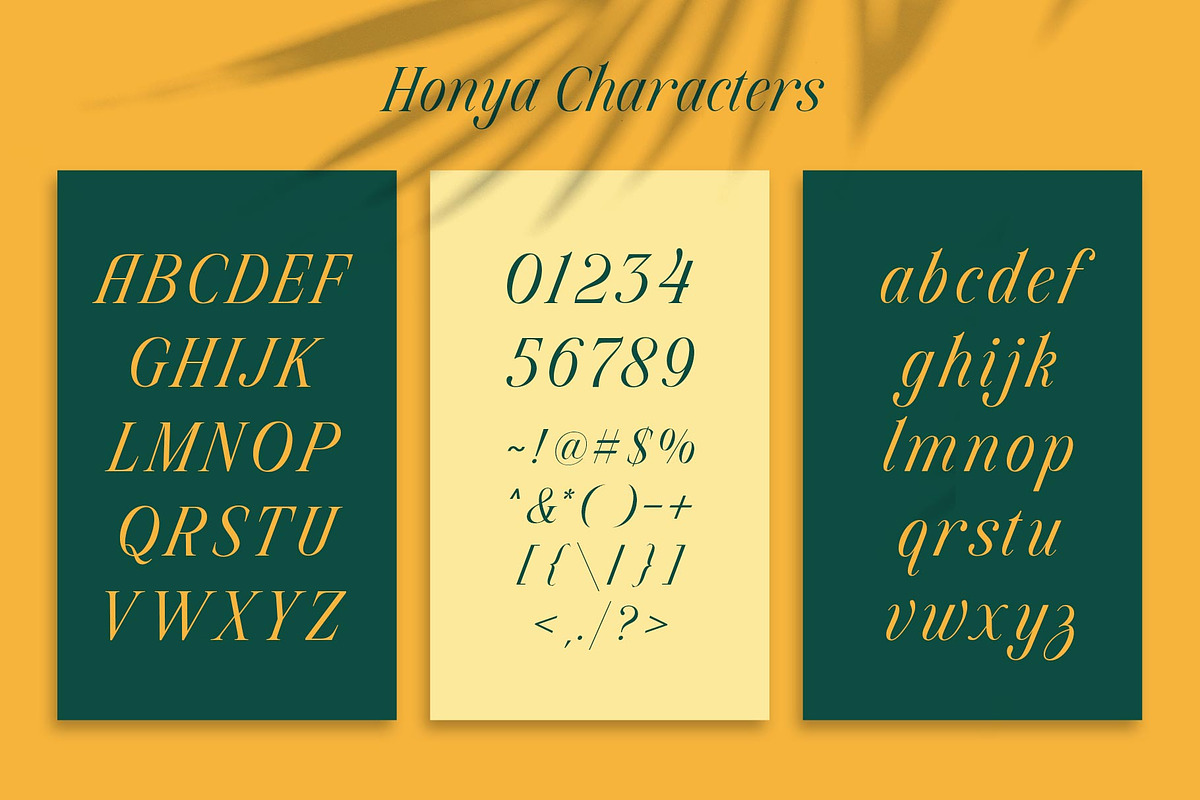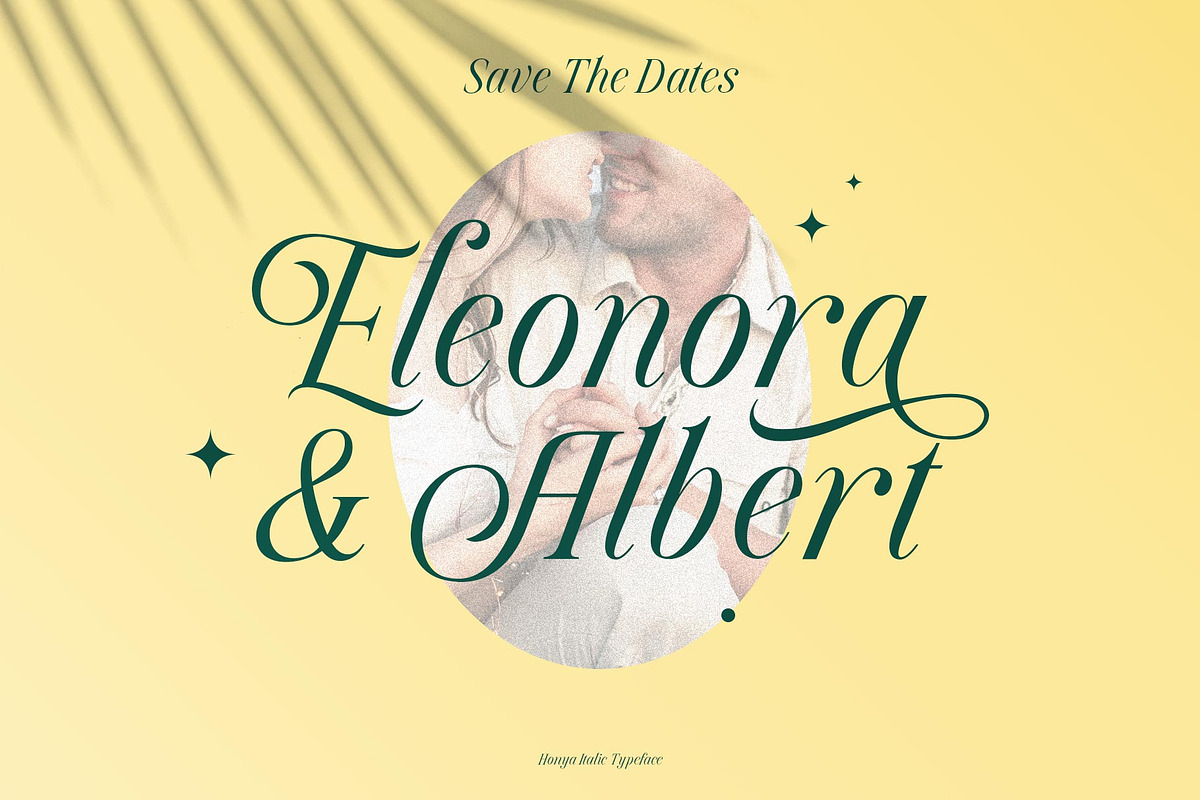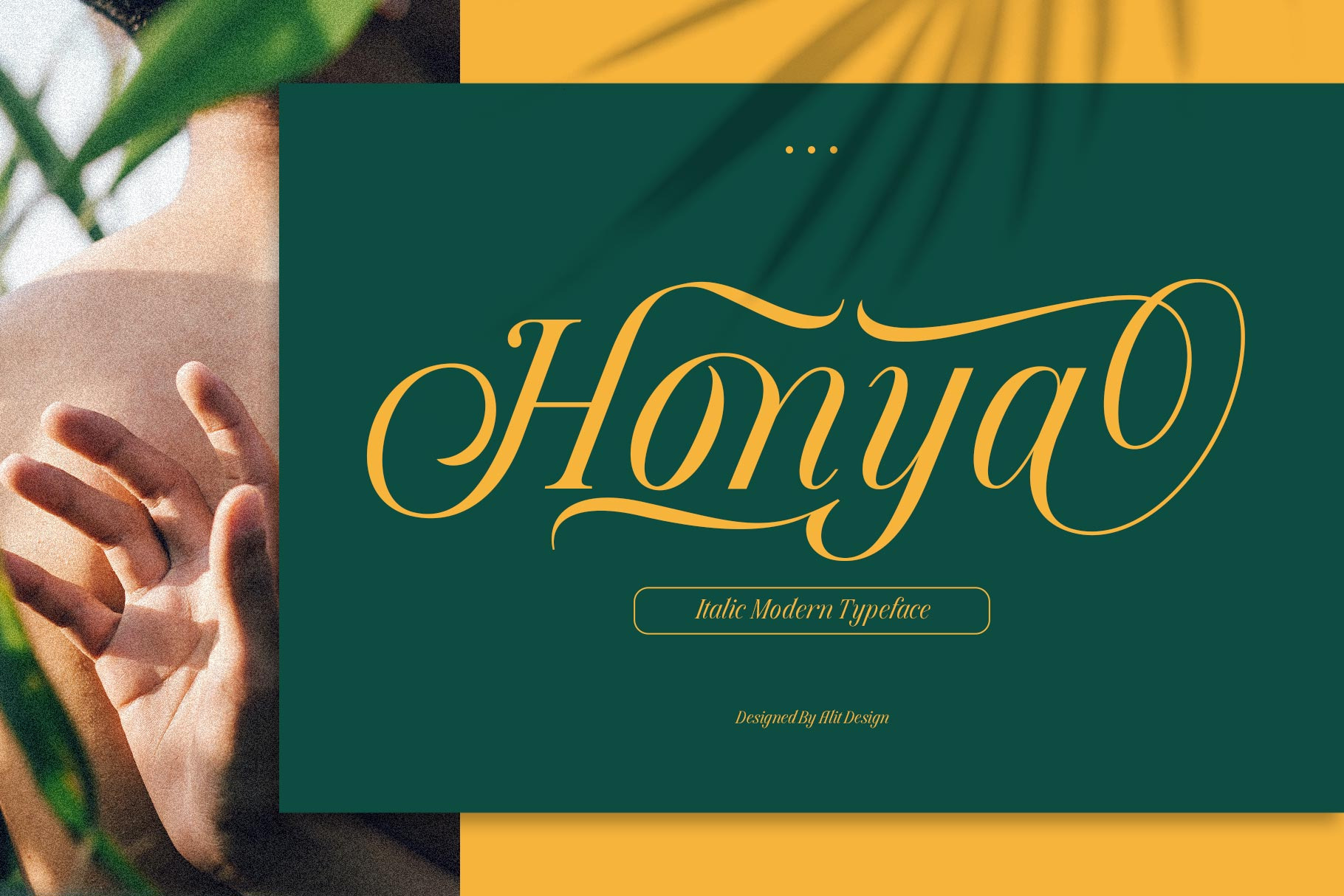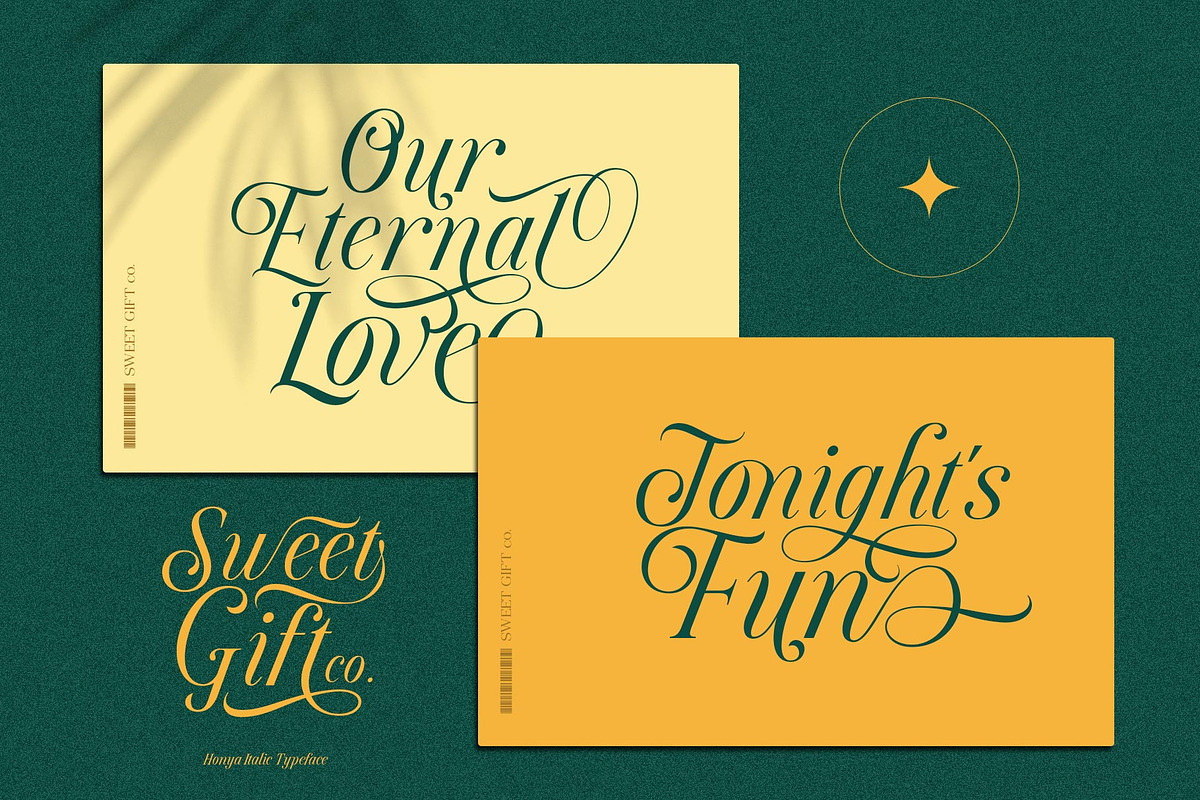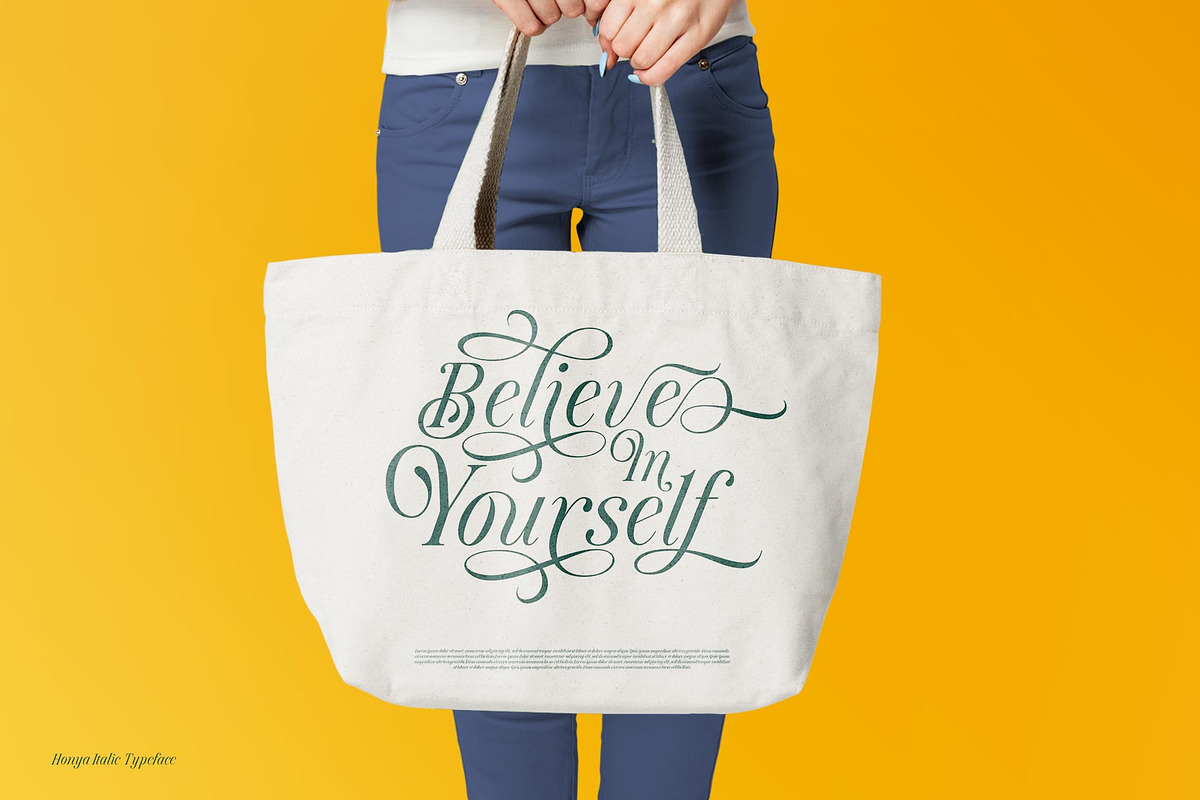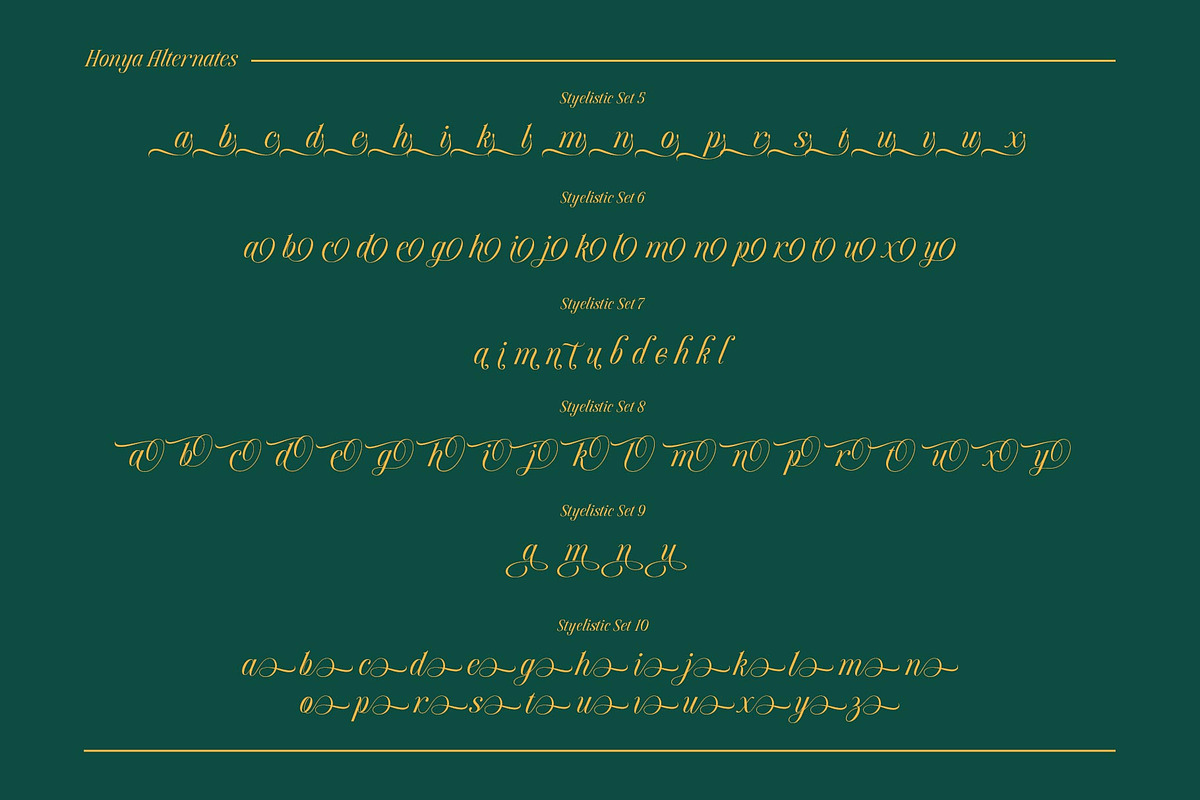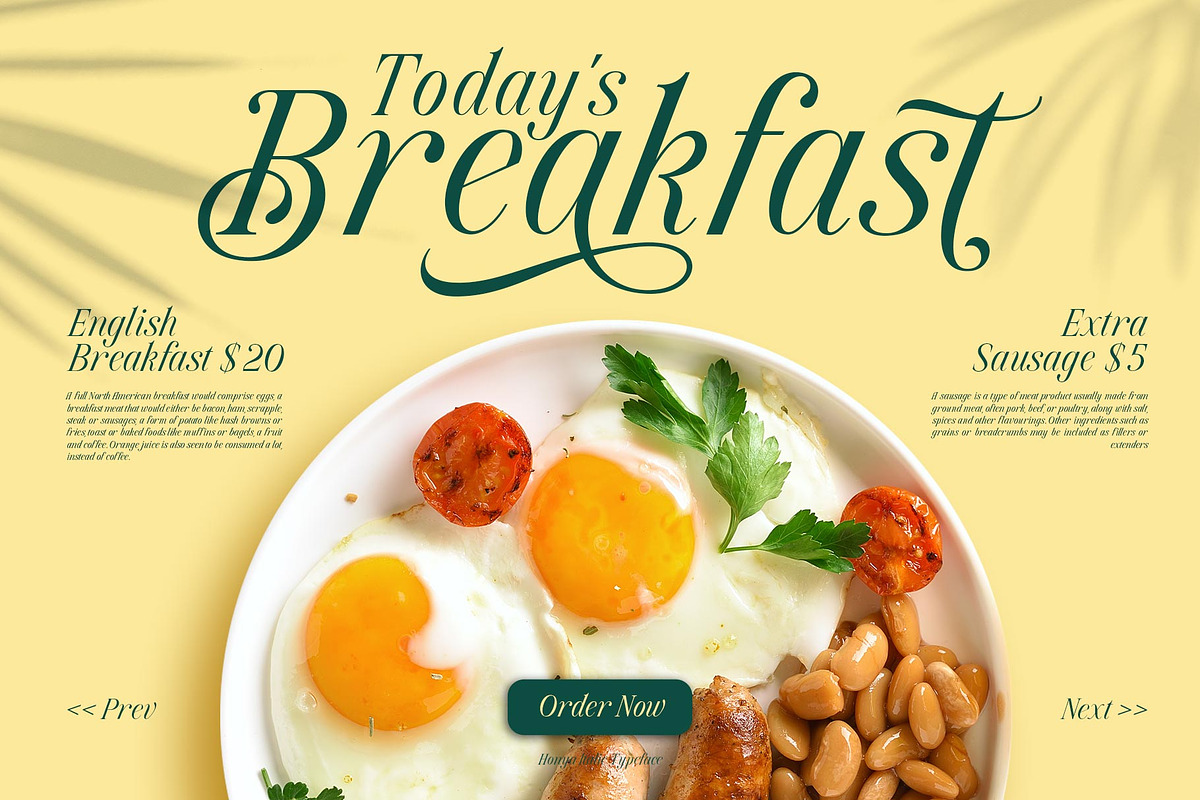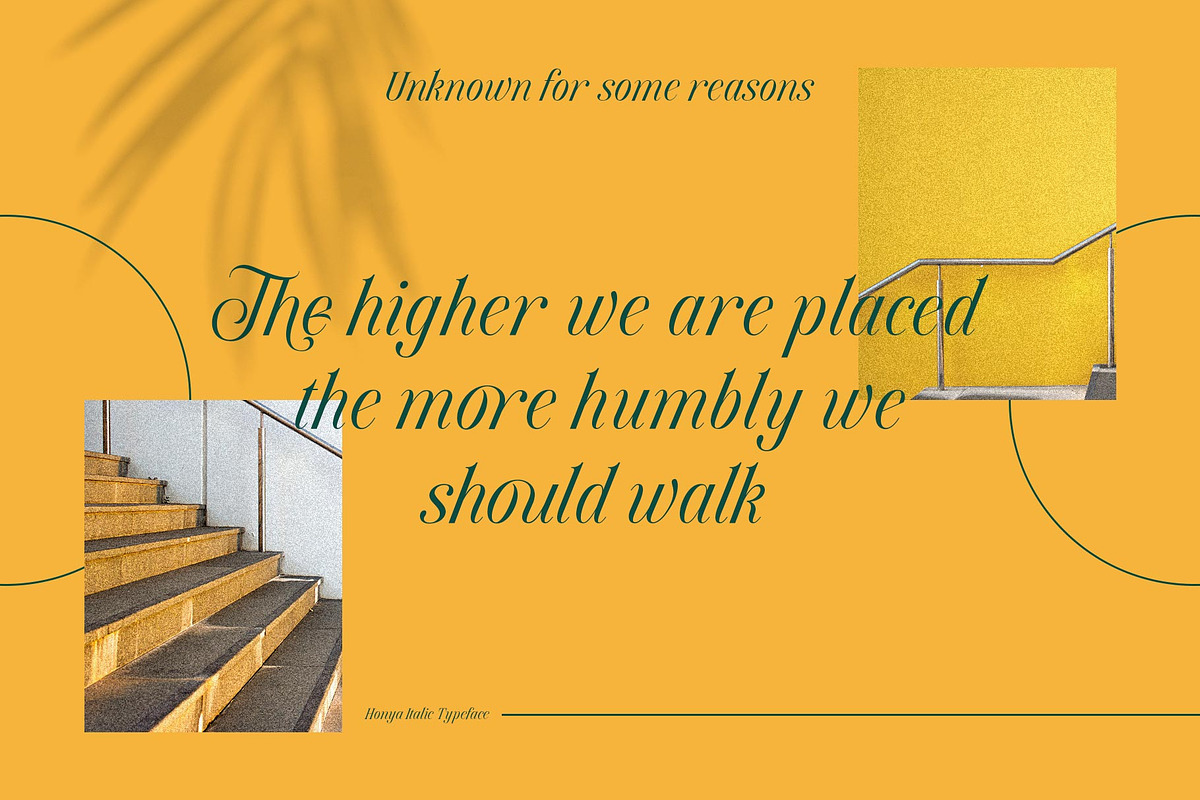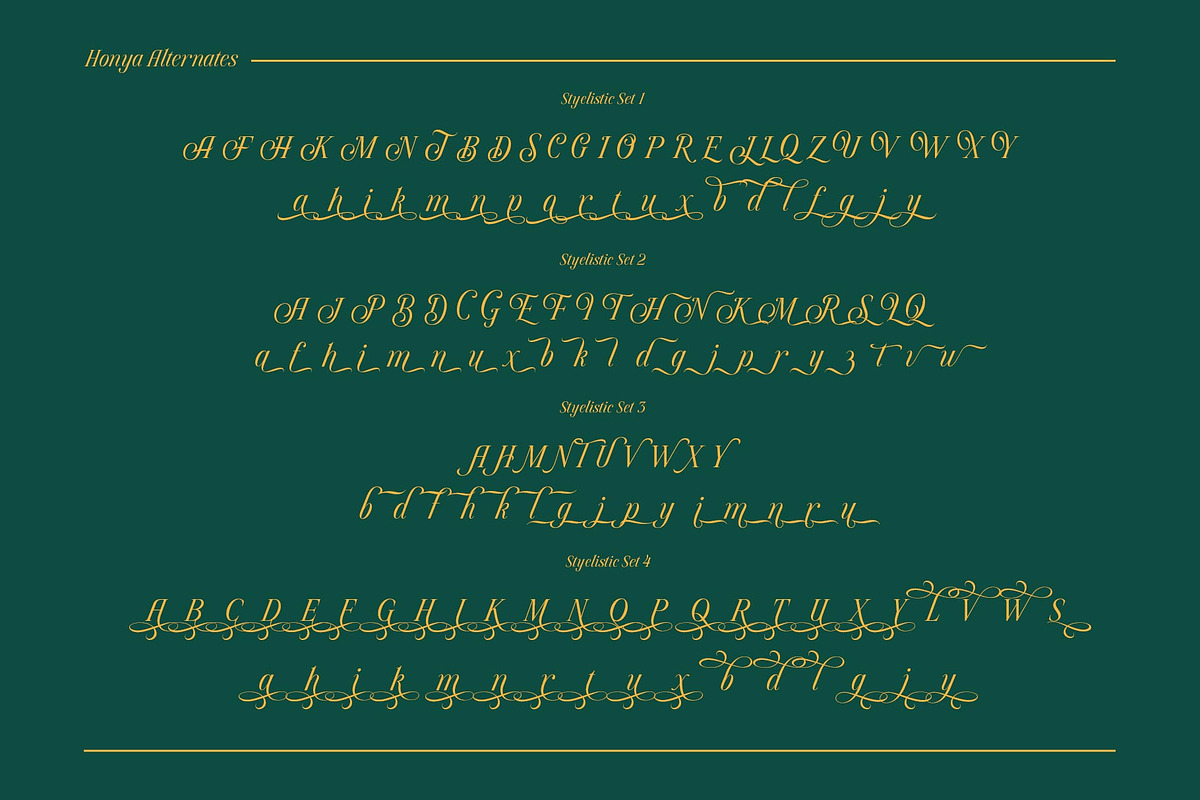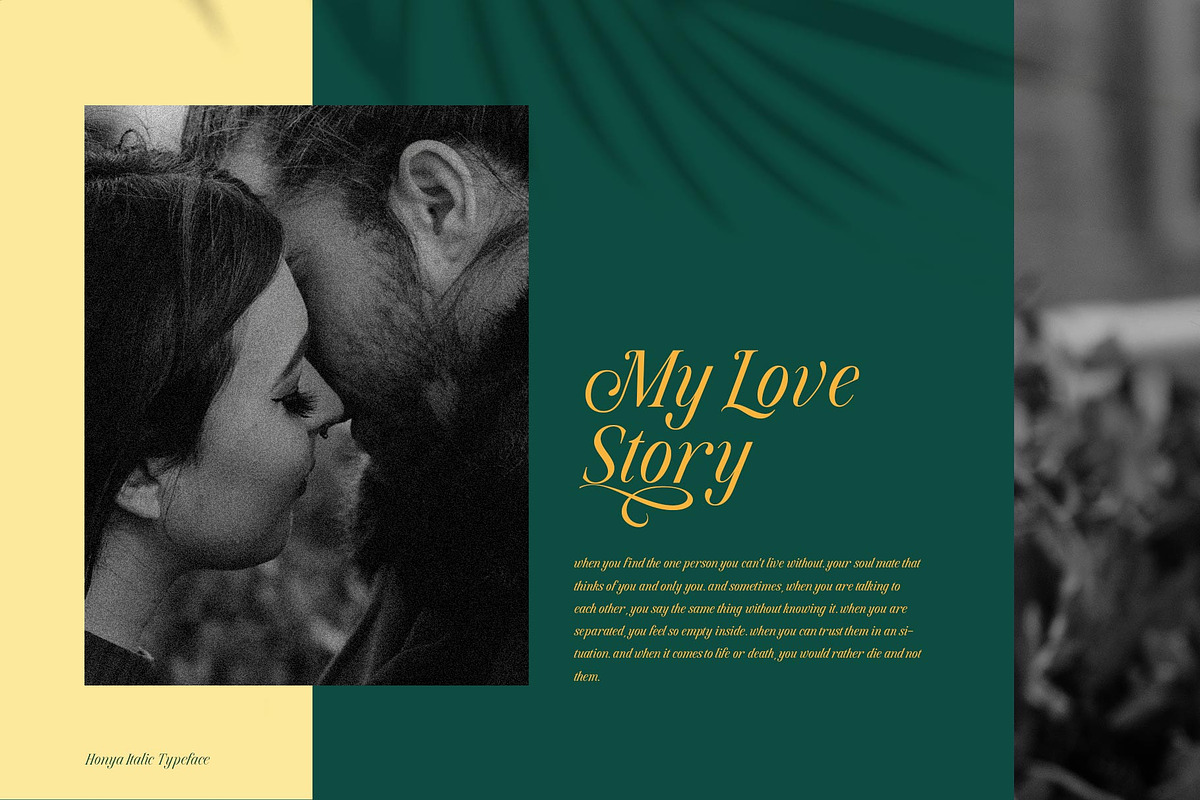
Honya Typeface
Introducing Honya Elegant script typeface
Honya Typeface is inspired by the classic era typeface in the 1800 era but is combined with today's era and produces a very elegant and charming typeface. The details of the “Honya Typeface” shape are very subtle and flow creating unique and gorgeous curves. Elegant script typefaces like “Honya Typeface” are very easy to apply to any design, especially those with an elegant and smooth concept, apart from that this font is very easy to use in both design and non-design programs because all alternates and glyphs are supported by Unicode (PUA).
Honya Typeface contains 797 glyphs with many unique and interesting alternate swash options. In addition, there are alternates cool serif fonts for header text and description (see preview). In the poster preview all the letters are in Honya Typeface.